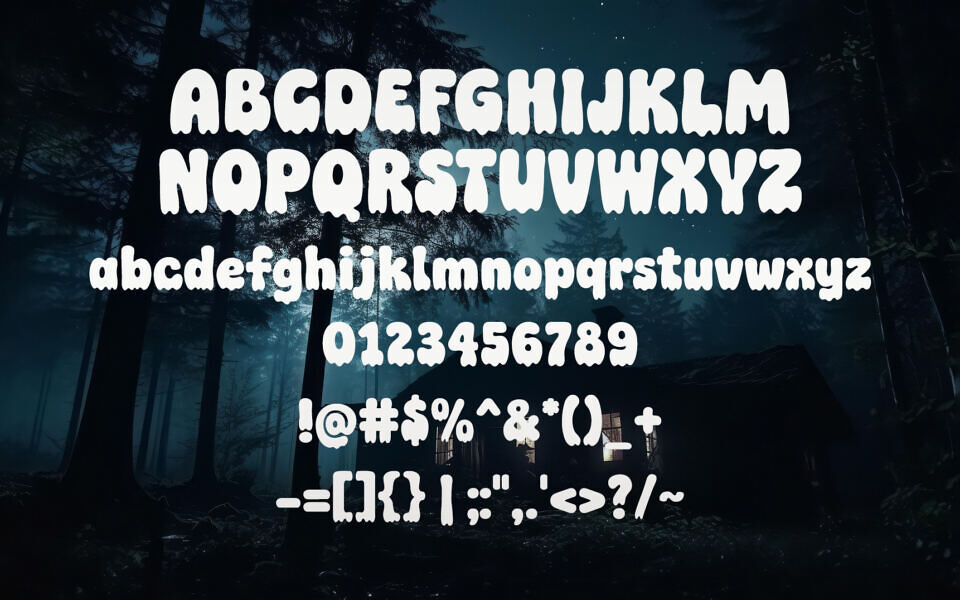
Super Ghost Font is a free spooky display typeface with soft, rounded shapes and dripping ghost-like edges. Its playful horror style blends cute and creepy vibes, making it perfect for Halloween designs, horror posters, spooky logos, gaming graphics, thumbnails, and fun title text.
Bold, highly legible, and eye-catching, this font adds a haunted yet friendly atmosphere to any creative project.